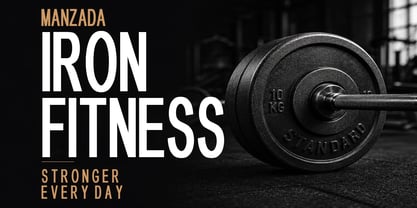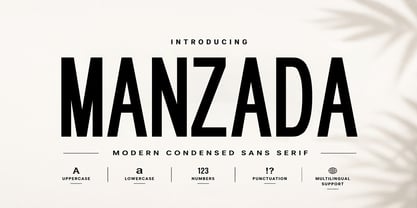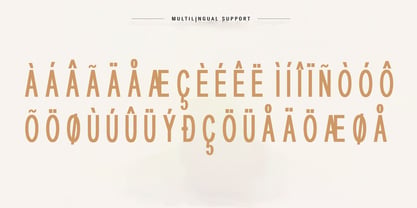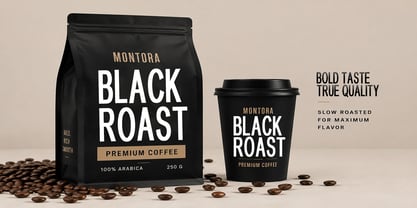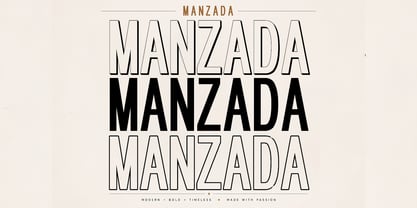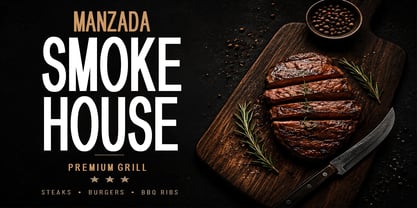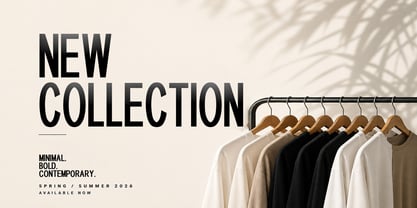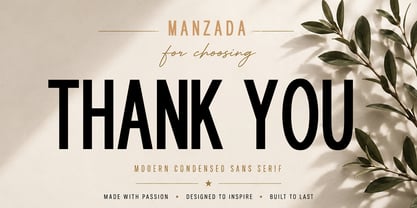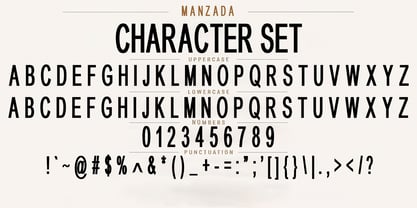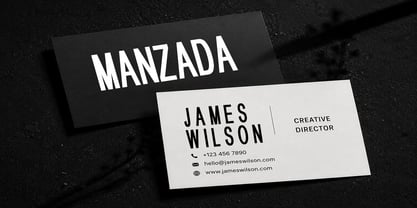
Manzada
by Shape Studio
The Manzada Font Family was designed by Teuku Saifullah and published by Shape Studio. Manzada contains 3 styles and family package options. More about this family
Manzada is a bold and modern condensed sans serif font designed to create a strong visual impact. Its tall, narrow proportions and clean geometric structure make it ideal for headlines, branding, posters, editorial layouts, packaging, advertising, and contemporary logo design.
With its powerful display character and excellent readability, Manzada works especially well when you need typography that feels modern, bold, clean, and confident.
Perfect for:
• Logo & branding
• Fashion & editorial design
• Posters & headlines
• Packaging
• Advertising
• Sports branding
• Restaurant & café branding
• Magazine layouts
• Social media graphics
• Website headlines
Manzada includes uppercase, lowercase, numbers, punctuation, and multilingual support.